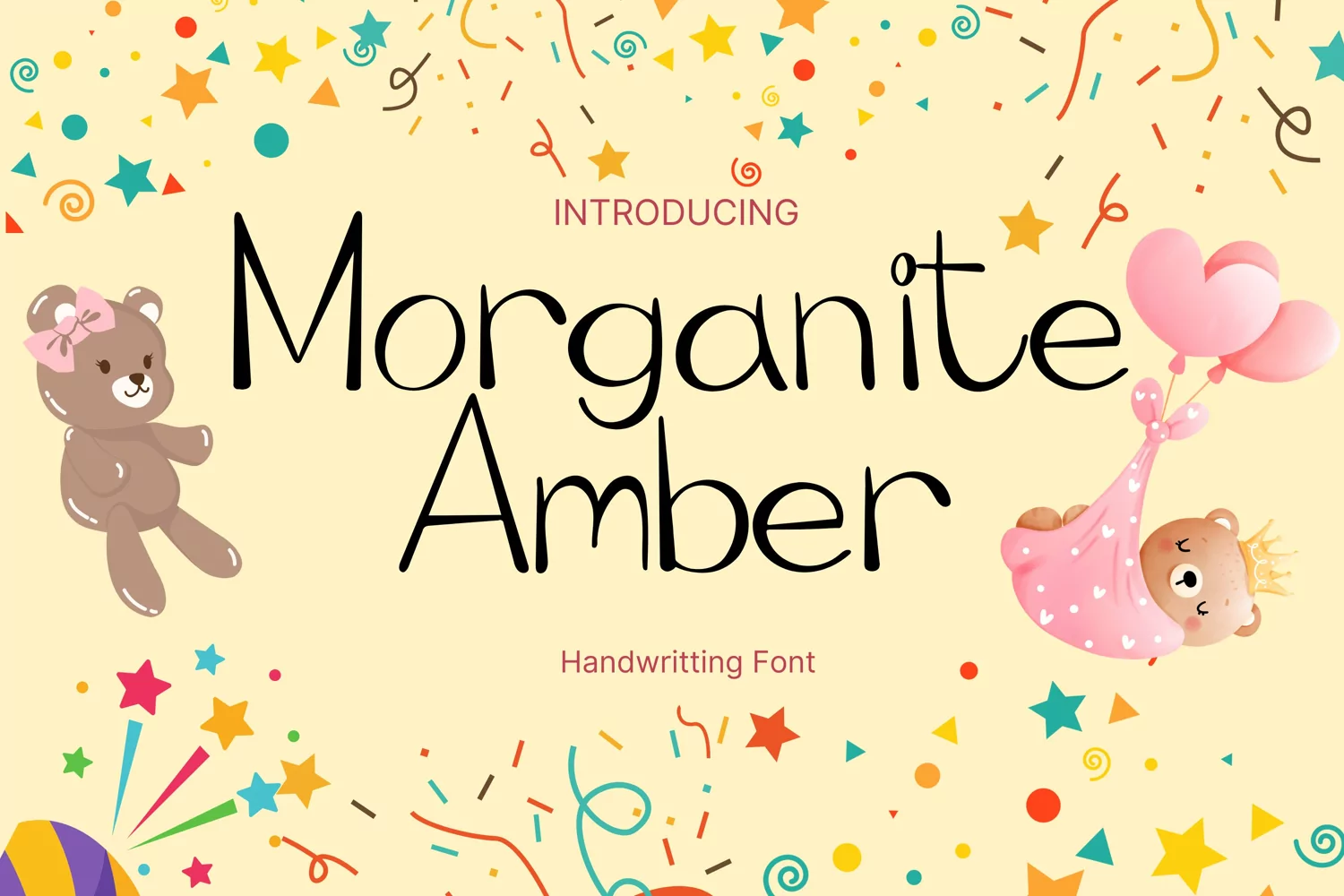
Morganite Amber Style
MorganiteAmber
Morganite Amber Style is a whimsical and clean handwritten font. It can easily be matched to an incredibly large set of projects, so add it to your creative ideas and notice how it makes them stand out!